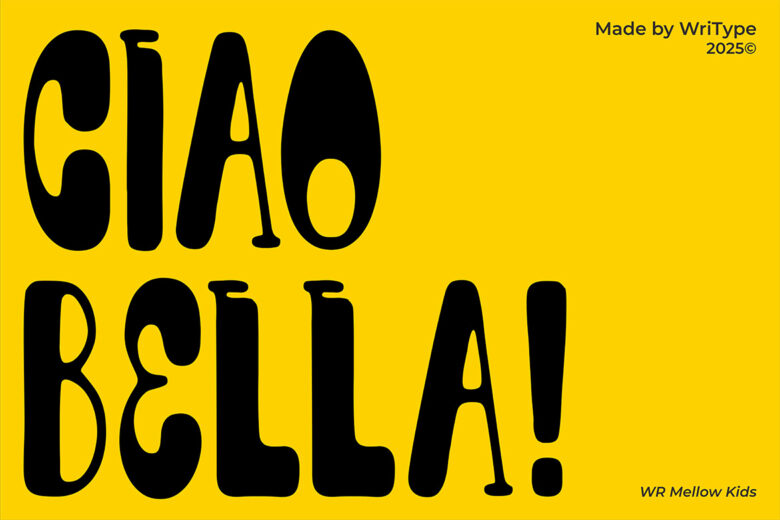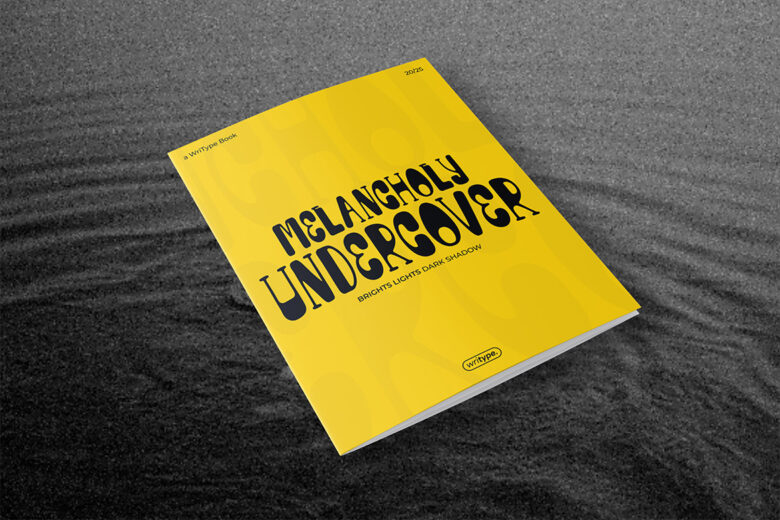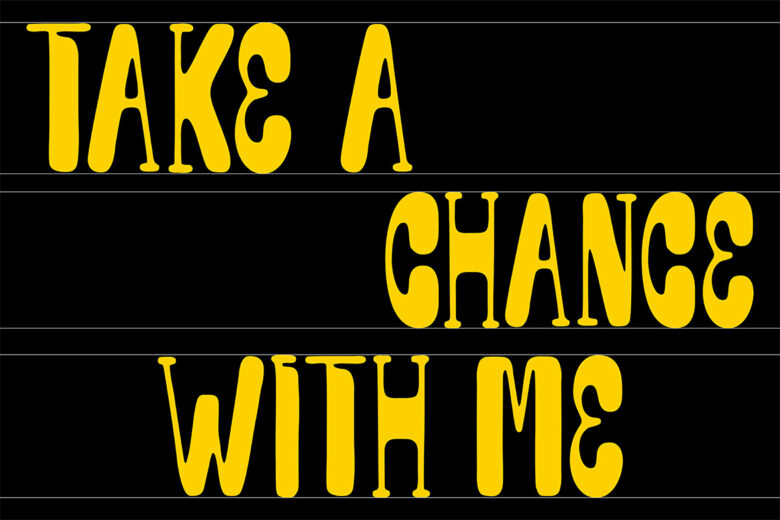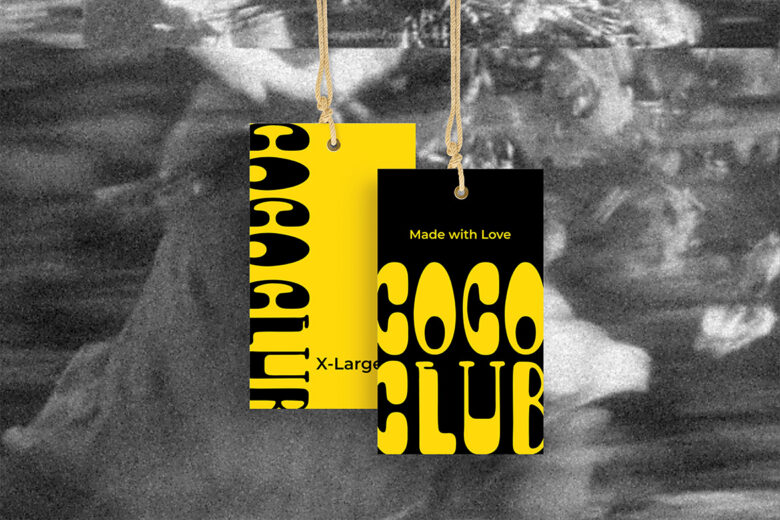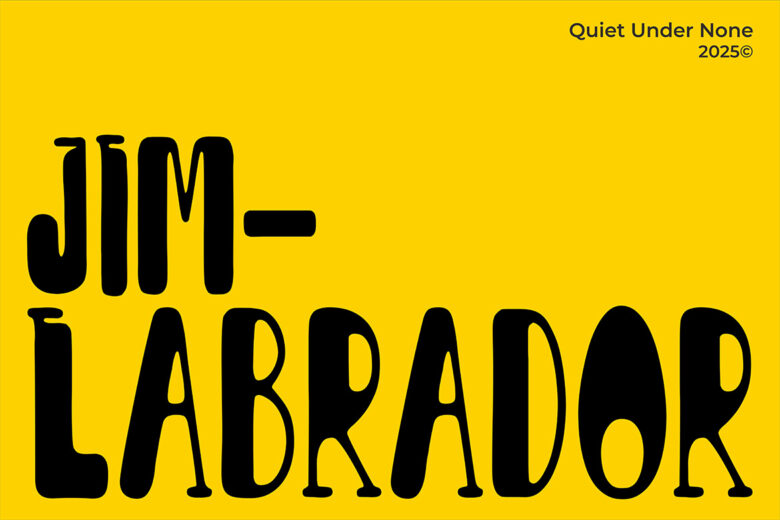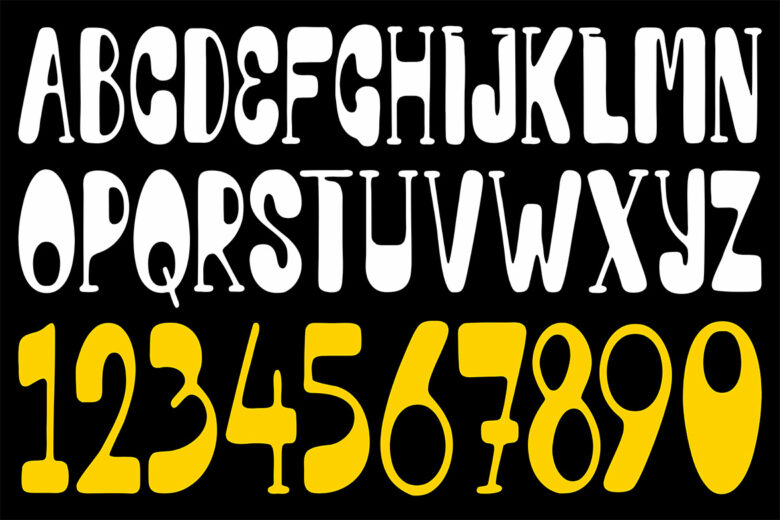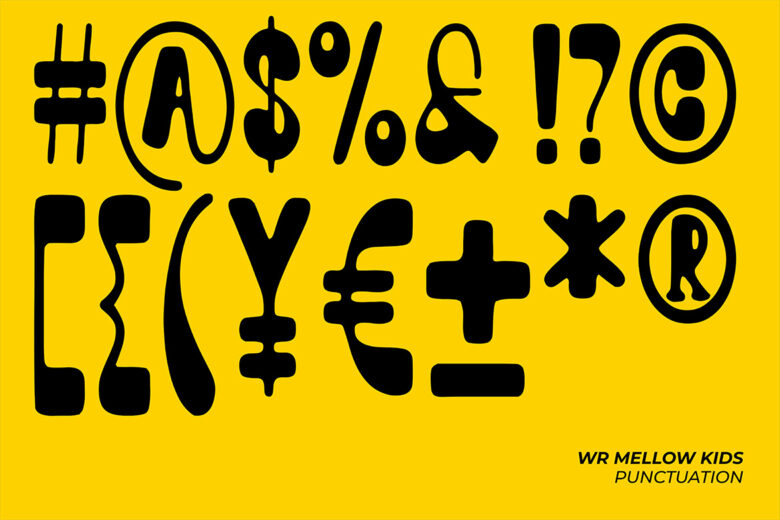
WR Mellow Kids
WR Mellow Kids is a playful handcrafted font with a unique twist in its contrast—where thick and thin strokes are intentionally reversed for a fun, unconventional look. Its charming and lively design makes it perfect for children’s themes, storybooks, branding, posters, and creative projects that need a touch of innocence and joy. With its whimsical personality, WR Mellow Kids brings a sense of adventure and imagination to any design.